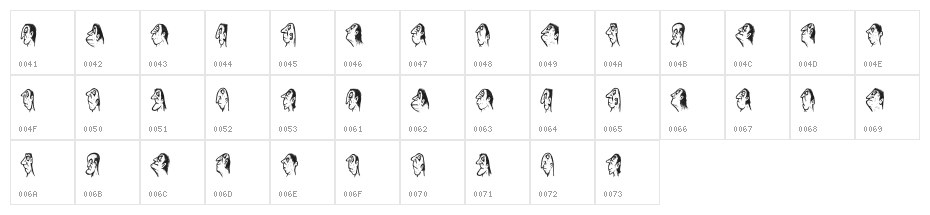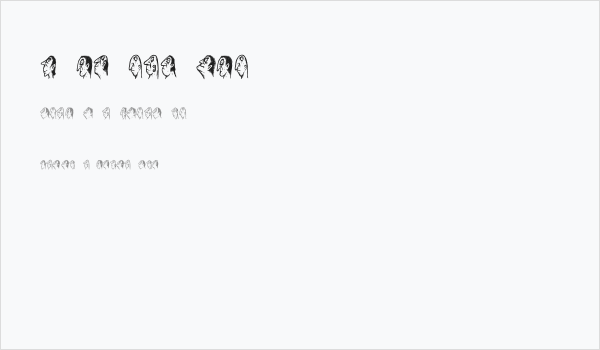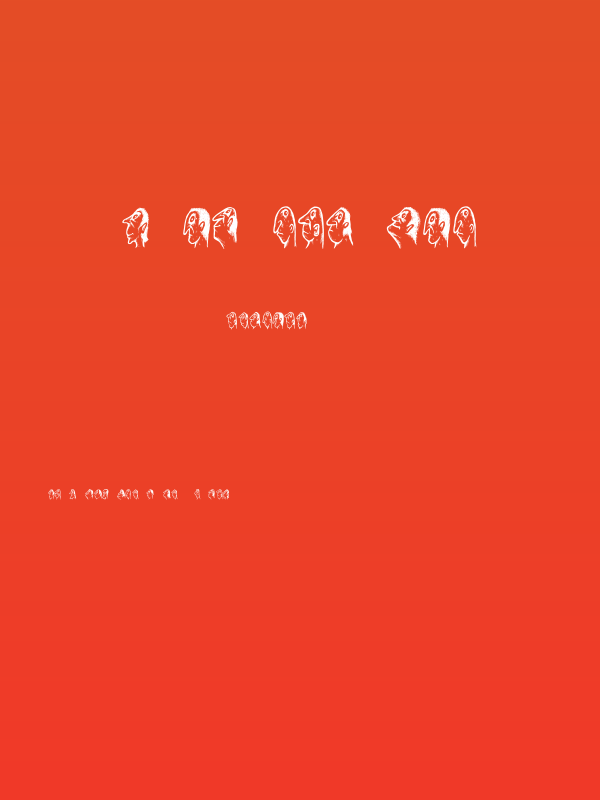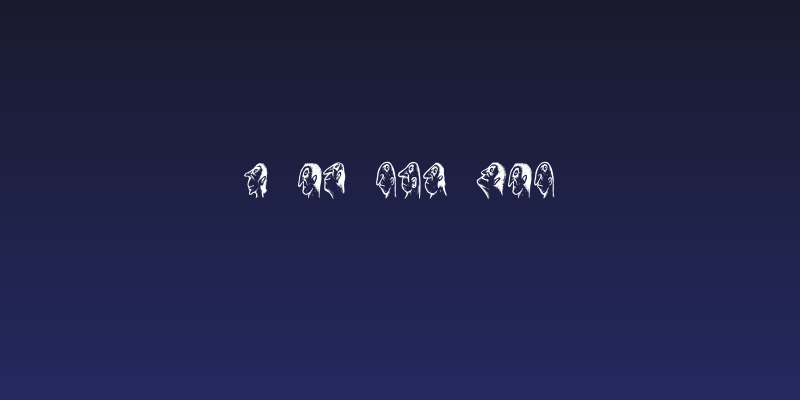
Stam Regular Font
Stam Regular Description
A highly decorative and illustrative font where each character is represented by a unique hand-drawn caricature profile, featuring expressive faces with exaggerated features and bold, sketchy linework.
| Overall Style | Decorative, Artistic, Whimsical |
| Use Case | Logos, Posters, Art titles, Editorial graphics |
| Proposed Projects | Editorial illustrations, comic books, posters, album covers, creative branding, art projects. |